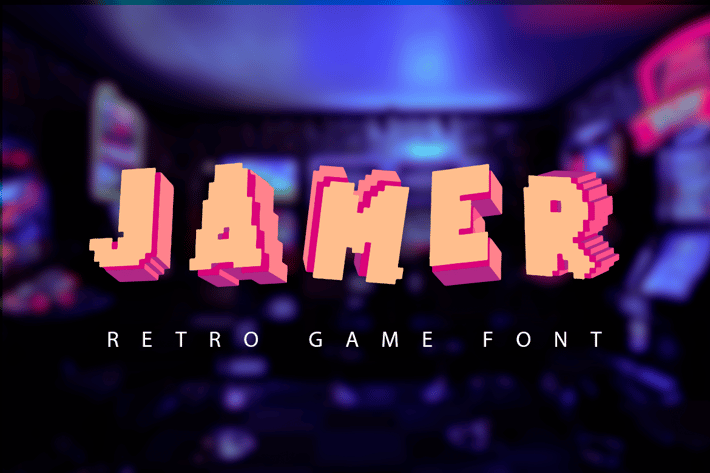
Jamer| retro game font
Jamer is three-dimensional sans serif font designed in the style of retro games. The font is made with 3d effect. The font has only capital letters, it works great to make short titles. The font looks good on both dark and light backgrounds.
Includes only uppercase letters.